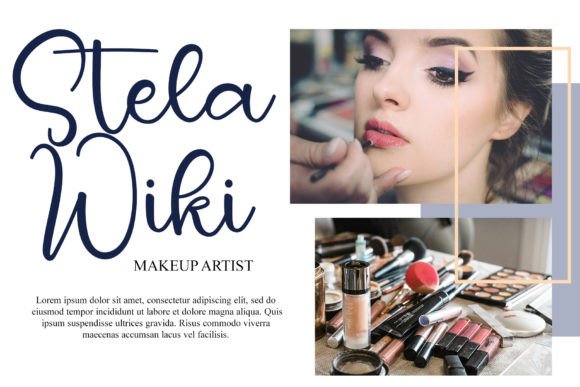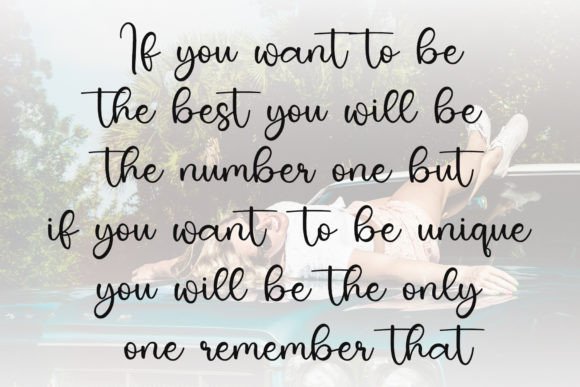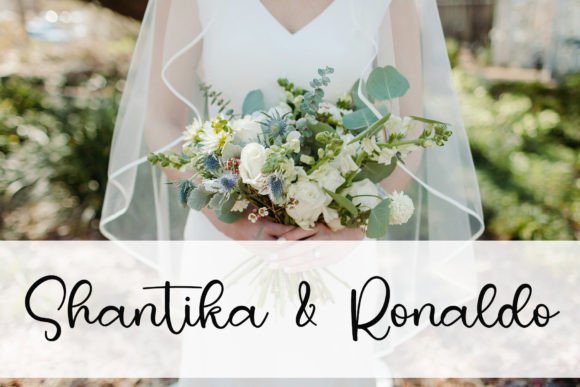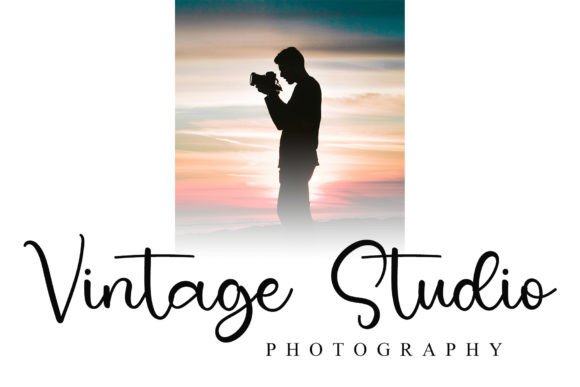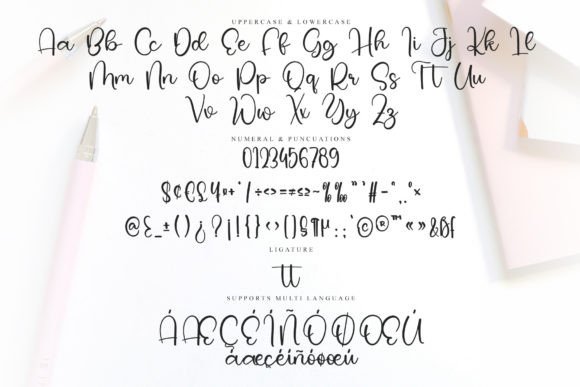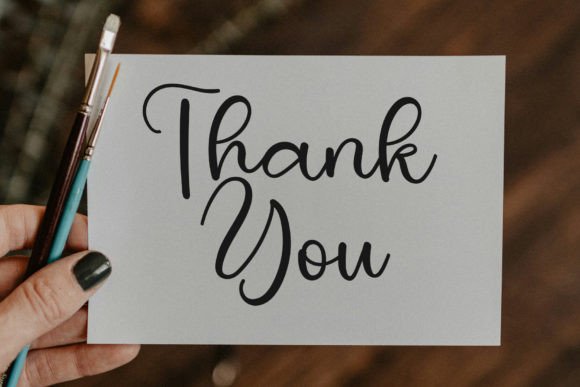
Adding a Personal Touch with the Angela Signature Font
There’s nothing quite like the feeling of holding a freshly designed greeting card in your hands, knowing that you’ve poured your heart and soul into every detail. For designers, this moment is a reminder of why we do what we do – to bring joy and personality to the world, one creative project at a time.
Enter the Angela Signature Font, a stylish and modern handwritten font that’s perfect for adding a personal touch to any design. Whether you’re working on a branding project, packaging design, or simply want to elevate your greeting cards, this font is sure to bring a smile to your face and your client’s. With its wide range of applications and ease of use, the Angela Signature Font is a valuable addition to any designer’s toolkit.
Angela Signature Font Key Features
- Font Family: Angela, Angela-Italic, Angela-Bold, Angela-BoldItalic
- Unique Characteristics: The Angela Signature Font features a flowing, cursive script with a high level of legibility, making it ideal for personal signatures, watermarks, and other handwritten-style designs.
Designer Review: Angela Signature Font
Overall, I’d say the Angela Signature Font has its charm. Here are a few things I think it does particularly well:
- ✨ Elegant and sophisticated vibe – perfect for high-end brands and luxury businesses.
- ✨ Wide range of language support, making it a great choice for international clients.
- ✨ Stylish flourishes and decorative elements add a touch of personality to any design.
However, there are a few limitations that might hold it back:
- ⚠️ Limited font sizes – some sizes feel a bit cramped or overly spaced, which can be jarring in certain designs.
- ⚠️ Some glyphs feel a bit awkwardly proportioned, which can throw off the overall aesthetic.
Overall, I think the Angela Signature Font is a solid choice for designers who want to add a touch of elegance to their projects. While it’s not perfect, its strengths outweigh its weaknesses, and with a bit of careful design, it can really shine.
To get the most out of the Angela Signature Font, try using it for invitations, social media graphics, and other design elements that require a touch of elegance. Experiment with different font sizes, colors, and arrangements to create unique and eye-catching designs.
The Angela Signature Font is commonly used for:
– Social media graphics and ads
– Event invitations and promotional materials
Alternatives to Angela Signature Font
Great Vibes is a beautiful, handwritten script font perfect for creating a warm and inviting atmosphere. It’s ideal for use in wedding invitations, greeting cards, and other personal stationery. When to use: for creating a whimsical and romantic feel.
Comparison to Angela Signature Font: Great Vibes has a more flowing and cursive feel compared to Angela Signature Font, which has a more elegant and refined look.
Alex Brush is a calligraphy-inspired script font that adds a touch of sophistication and elegance to any design. It’s perfect for use in luxury branding, high-end packaging, and other premium designs. When to use: for creating a high-end and exclusive feel.
Comparison to Angela Signature Font: Alex Brush has a more classic and traditional feel compared to Angela Signature Font, which has a more modern and trendy look.
Playfair Display is a luxurious and elegant script font perfect for use in high-end branding, luxury packaging, and other premium designs. It’s ideal for creating a sophisticated and refined atmosphere. When to use: for creating a high-end and exclusive feel.
Comparison to Angela Signature Font: Playfair Display has a more formal and traditional feel compared to Angela Signature Font, which has a more modern and trendy look.